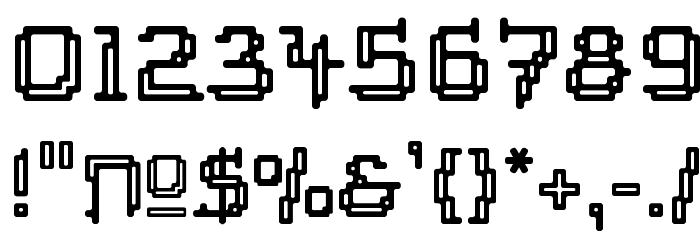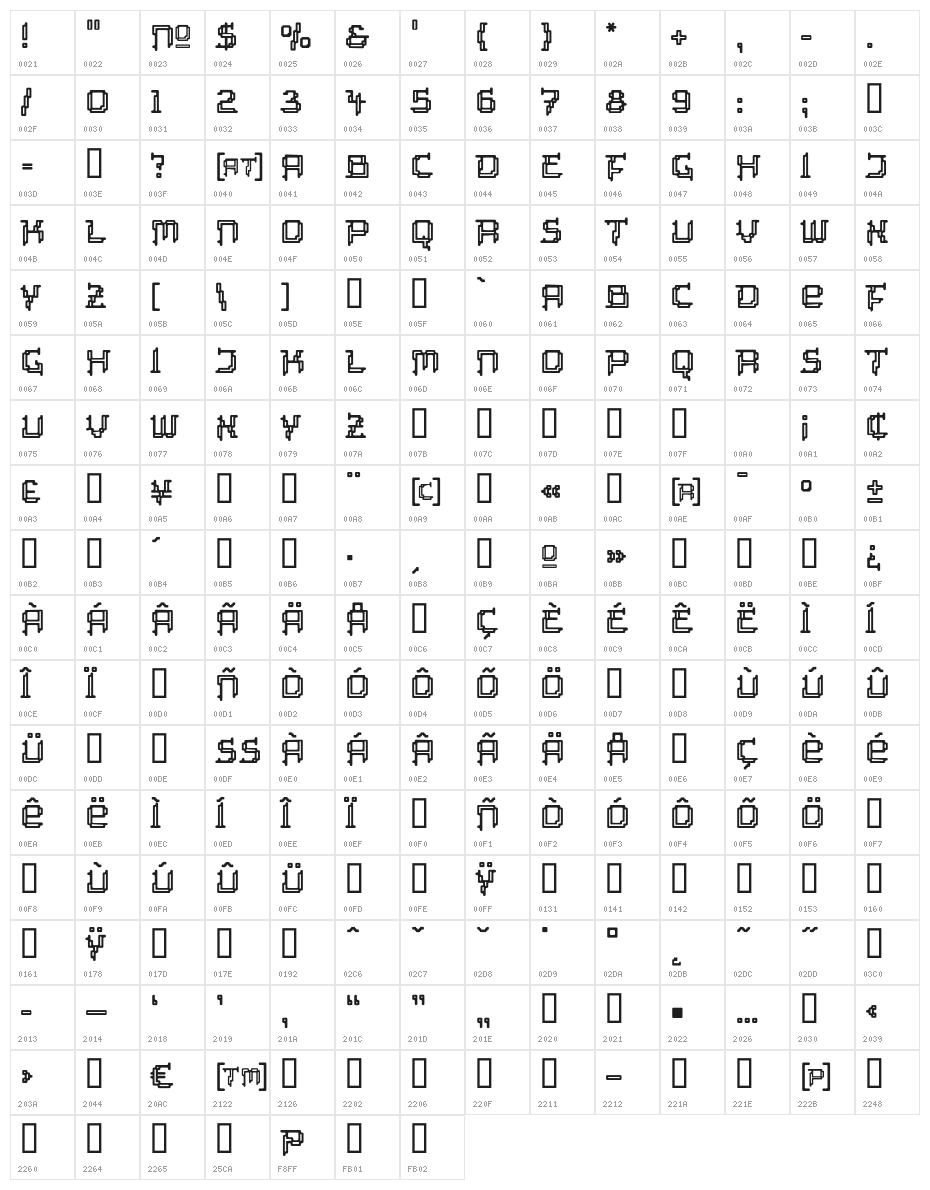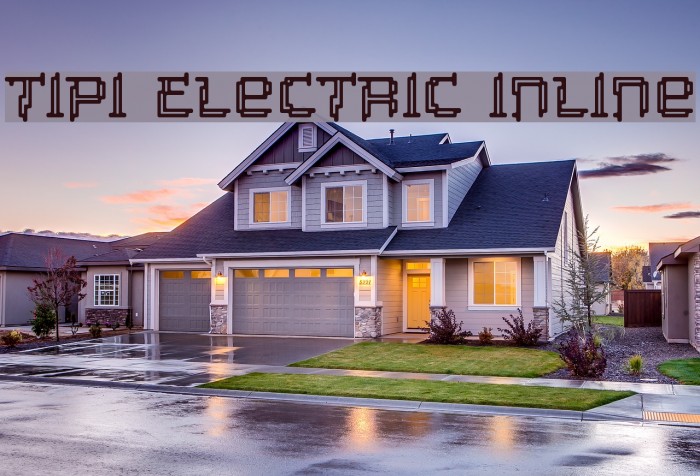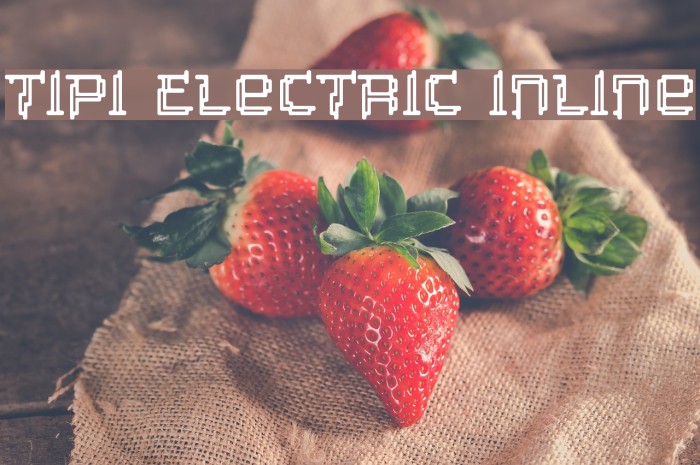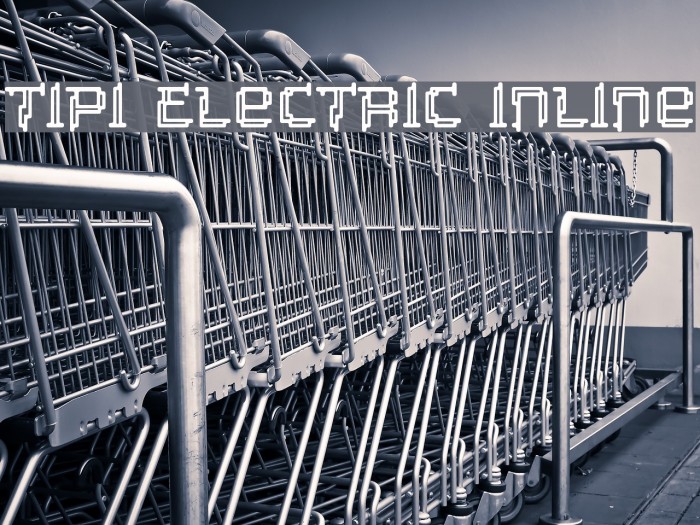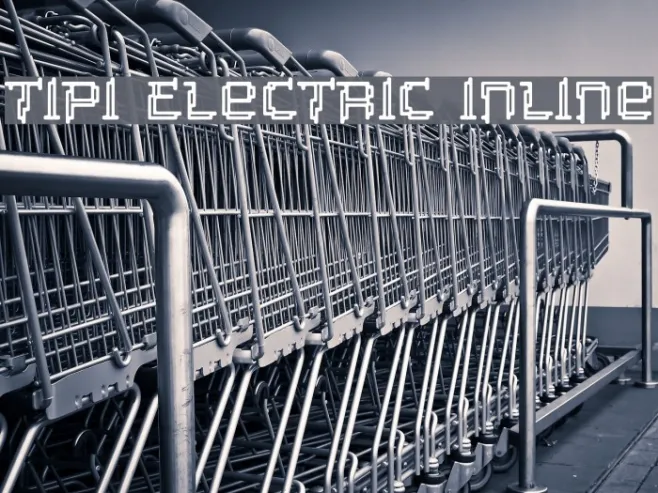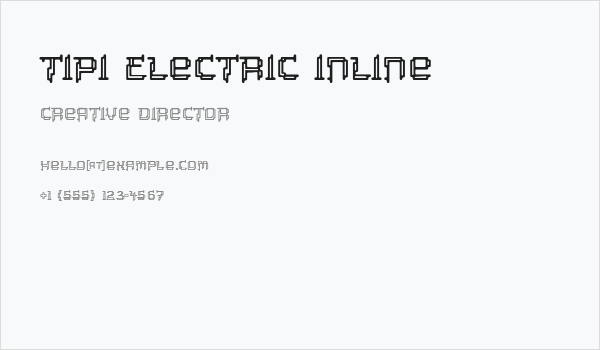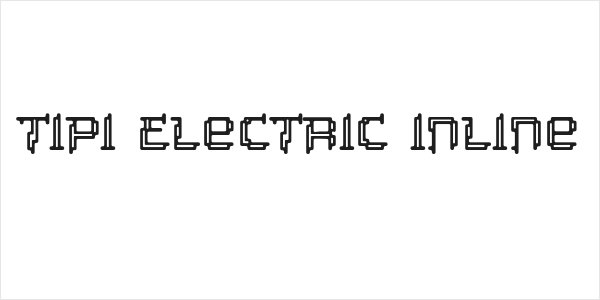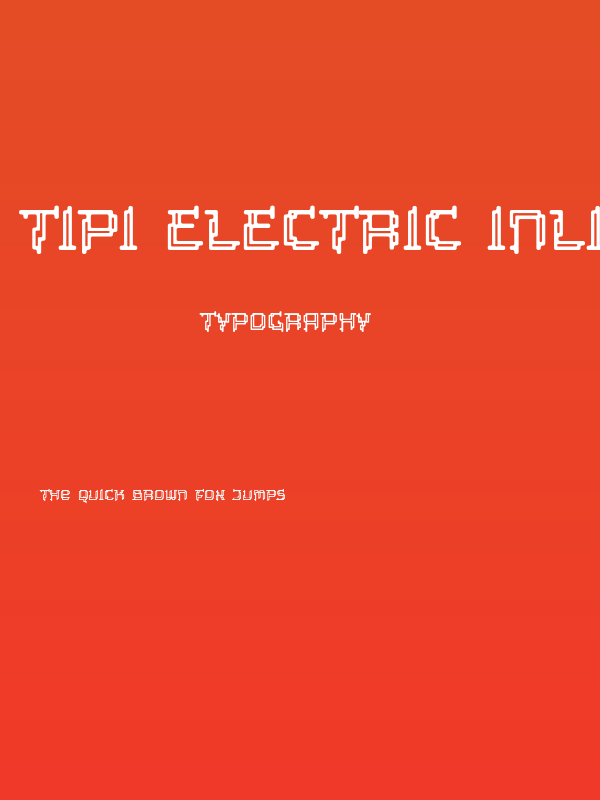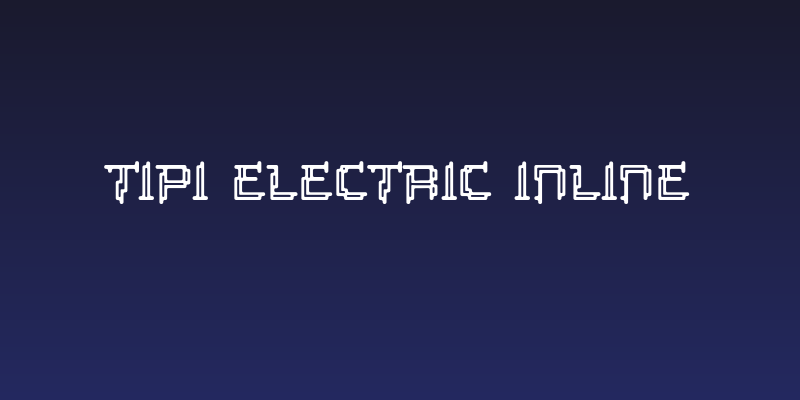
Tipi Electric Inline Font
Tipi Electric Inline Description
This font features a unique, geometric design with an inline style that gives it a futuristic and digital appearance. The characters are constructed with a consistent line thickness, creating a uniform look across all letters and numbers. The angular and blocky shapes are reminiscent of early computer graphics or retro video game aesthetics, making it ideal for projects that require a tech-savvy or nostalgic feel. The font maintains a consistent height and width, ensuring readability while offering a distinct visual impact. Its bold and structured form makes it suitable for headlines or display purposes where a strong, modern statement is desired.
| Overall Style | Modern, Retro |
| Use Case | Headlines, Logos, Display |
| Proposed Projects | Ideal for tech-themed designs, retro video game graphics, digital art, and futuristic branding. |